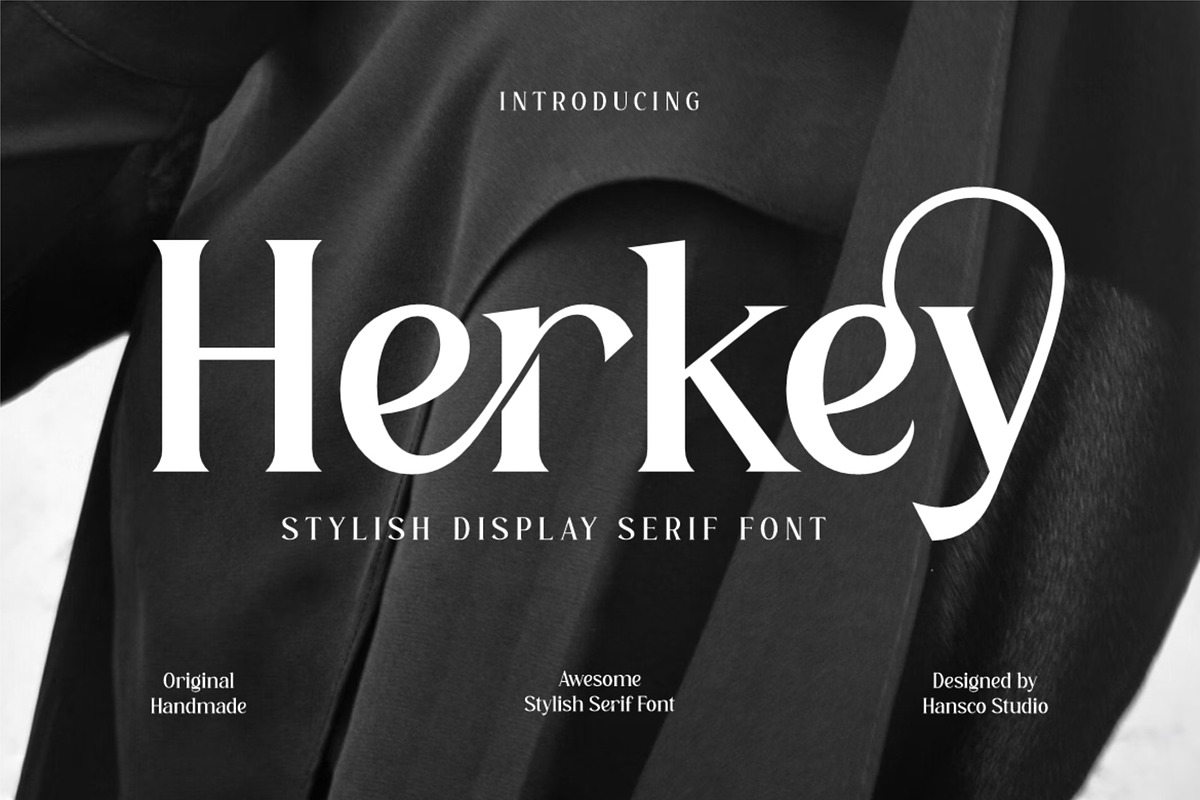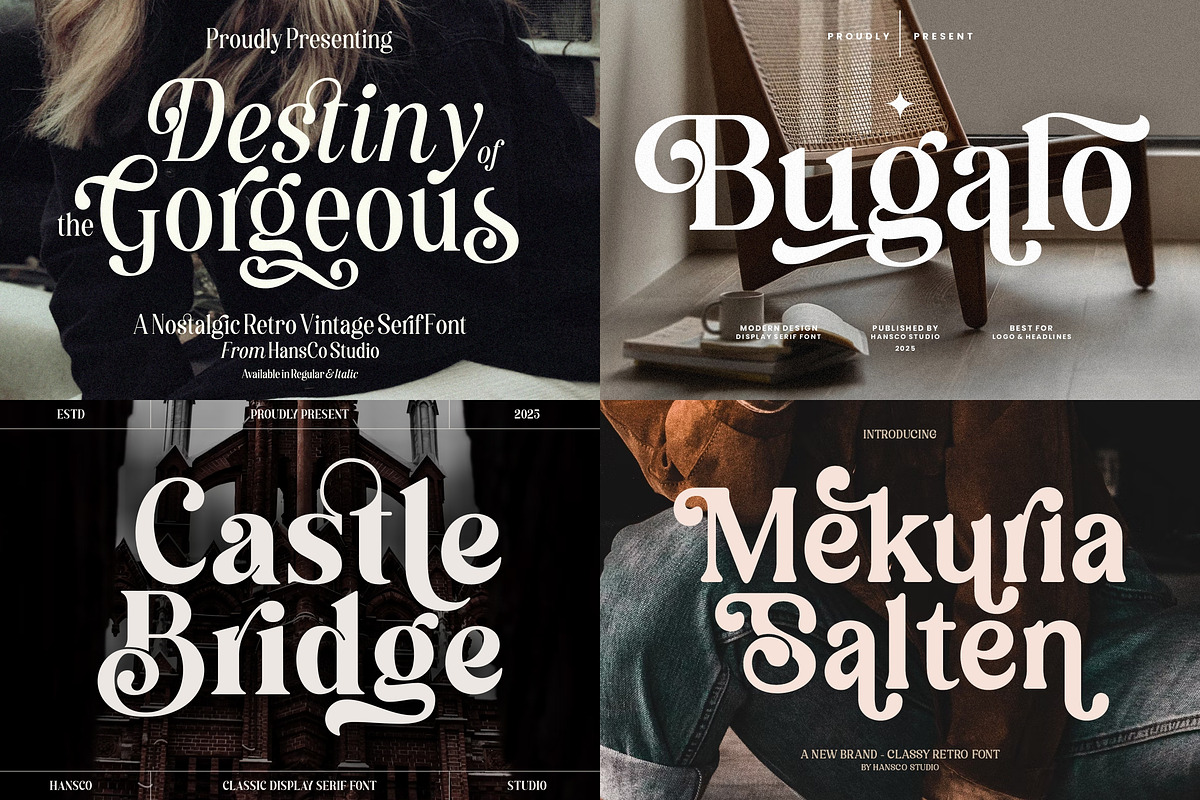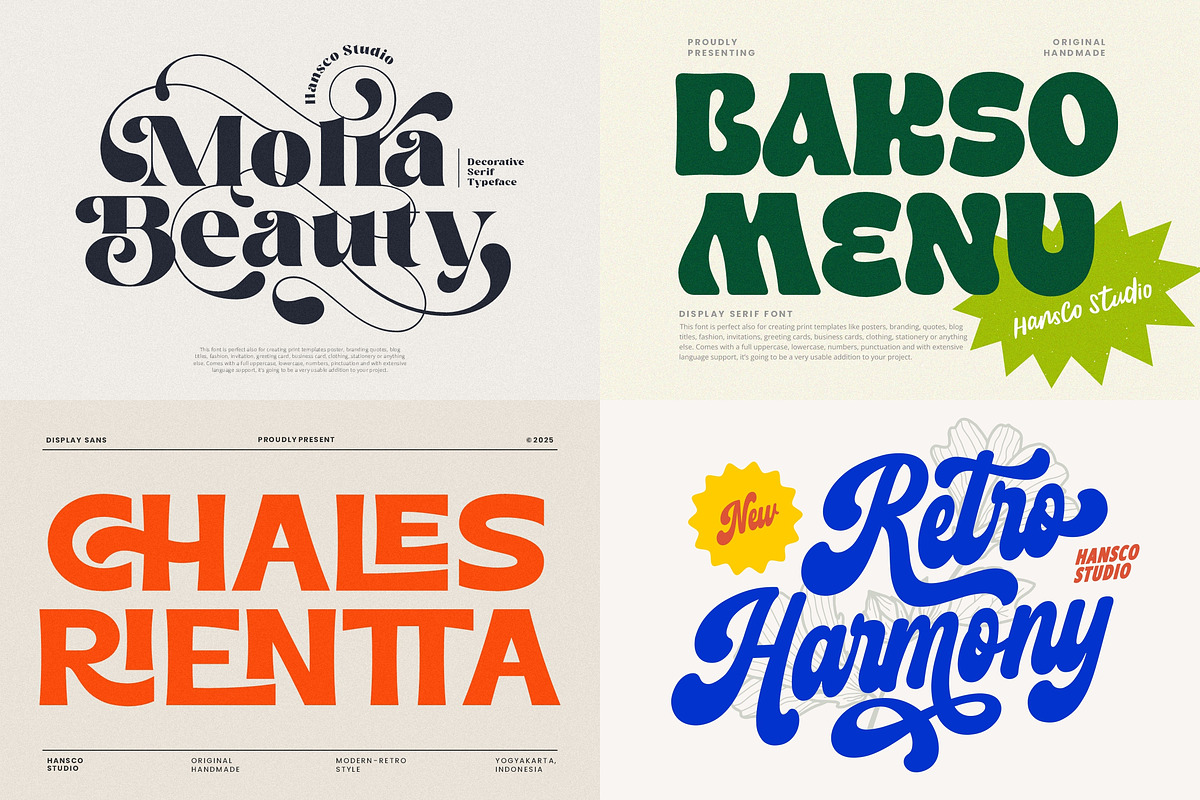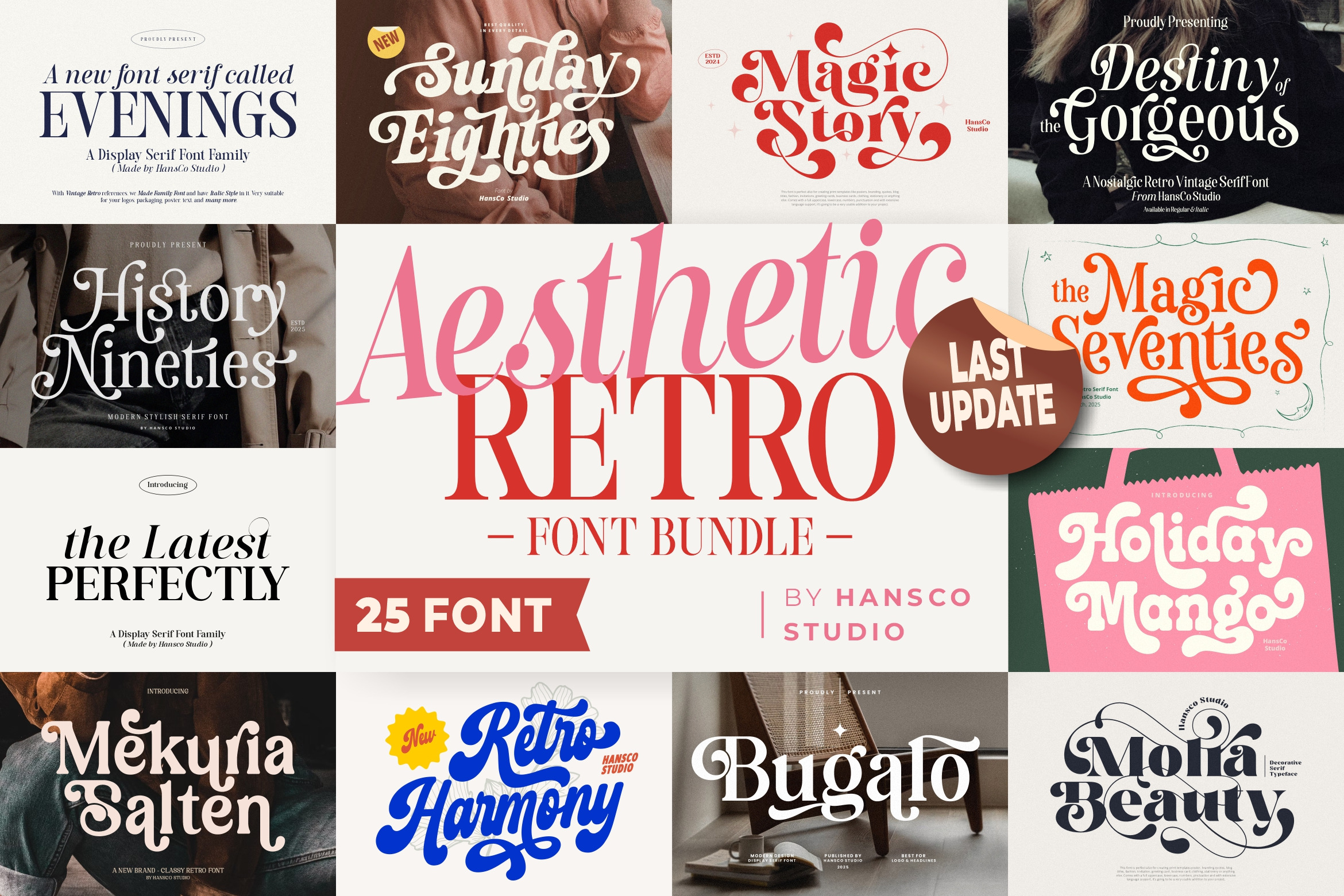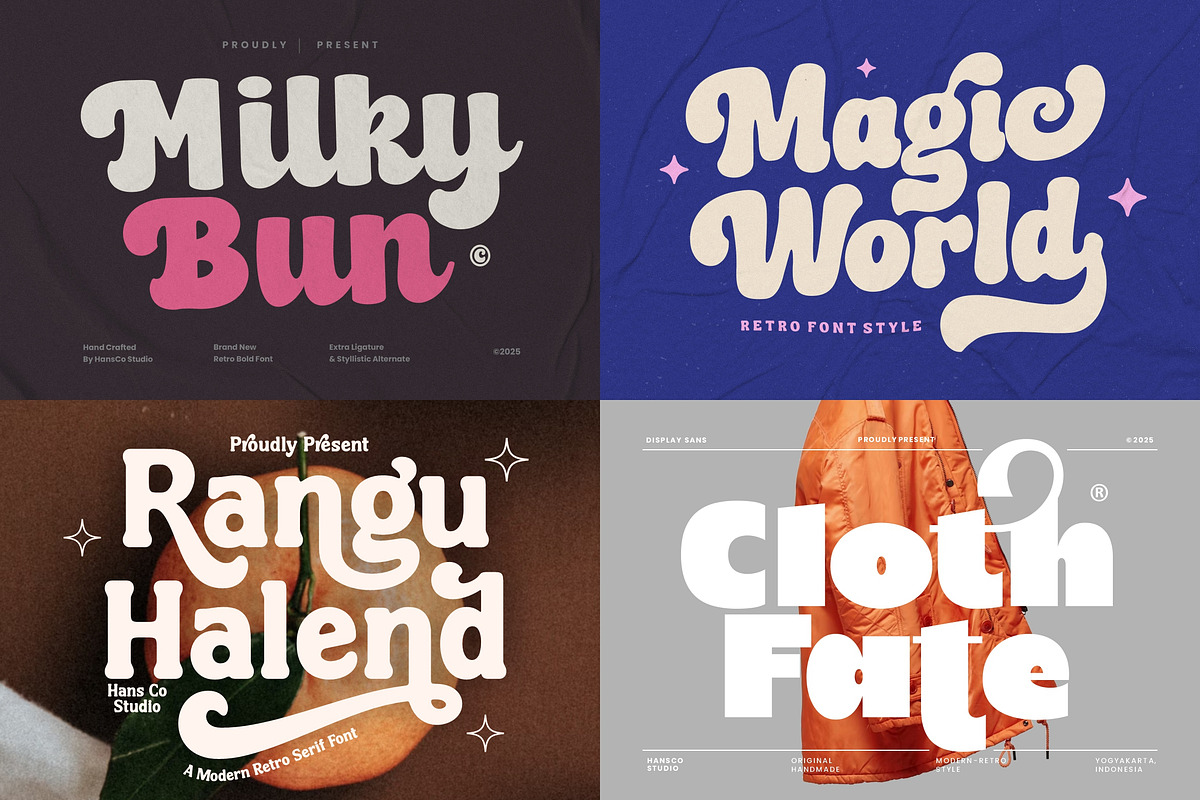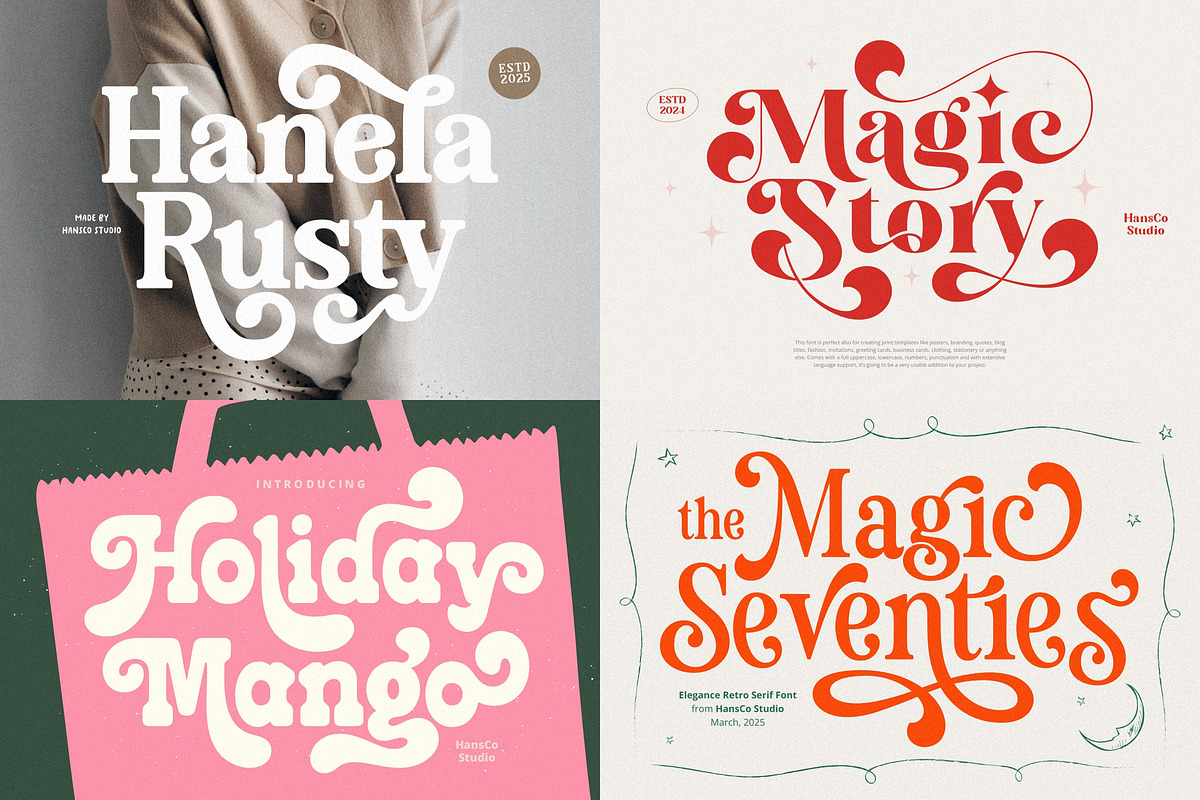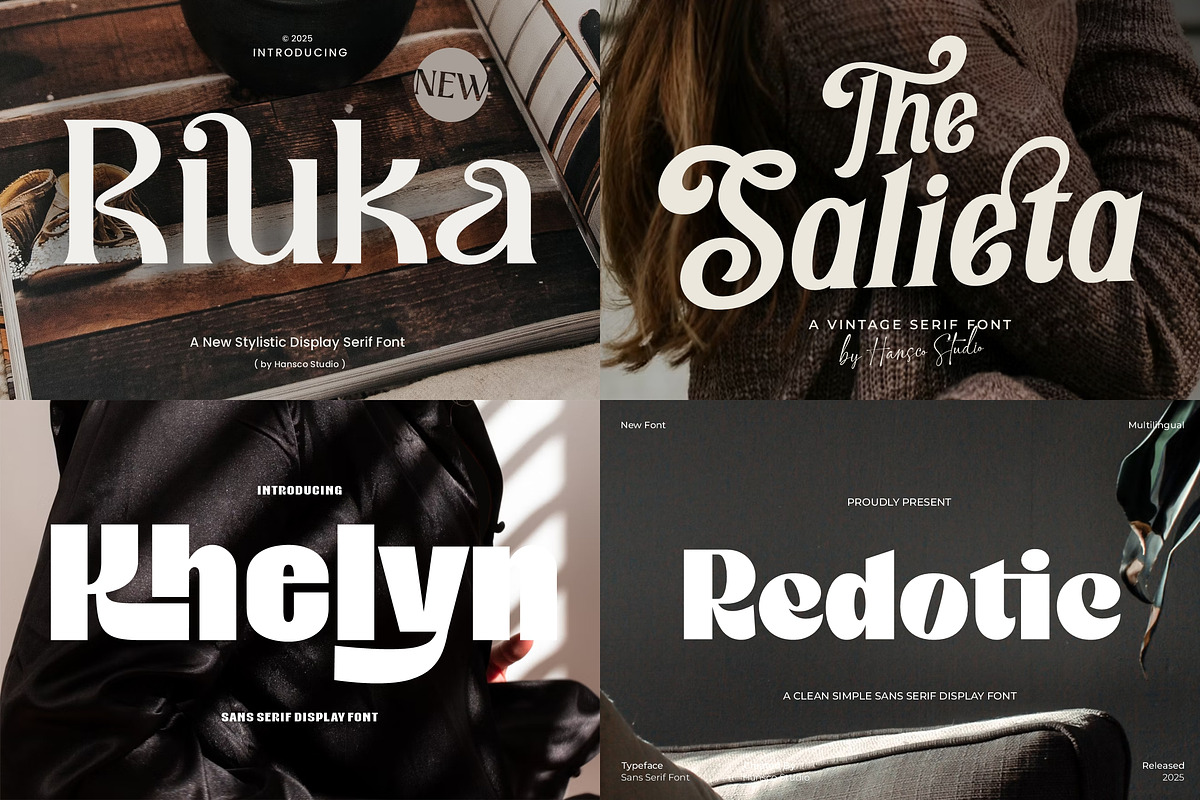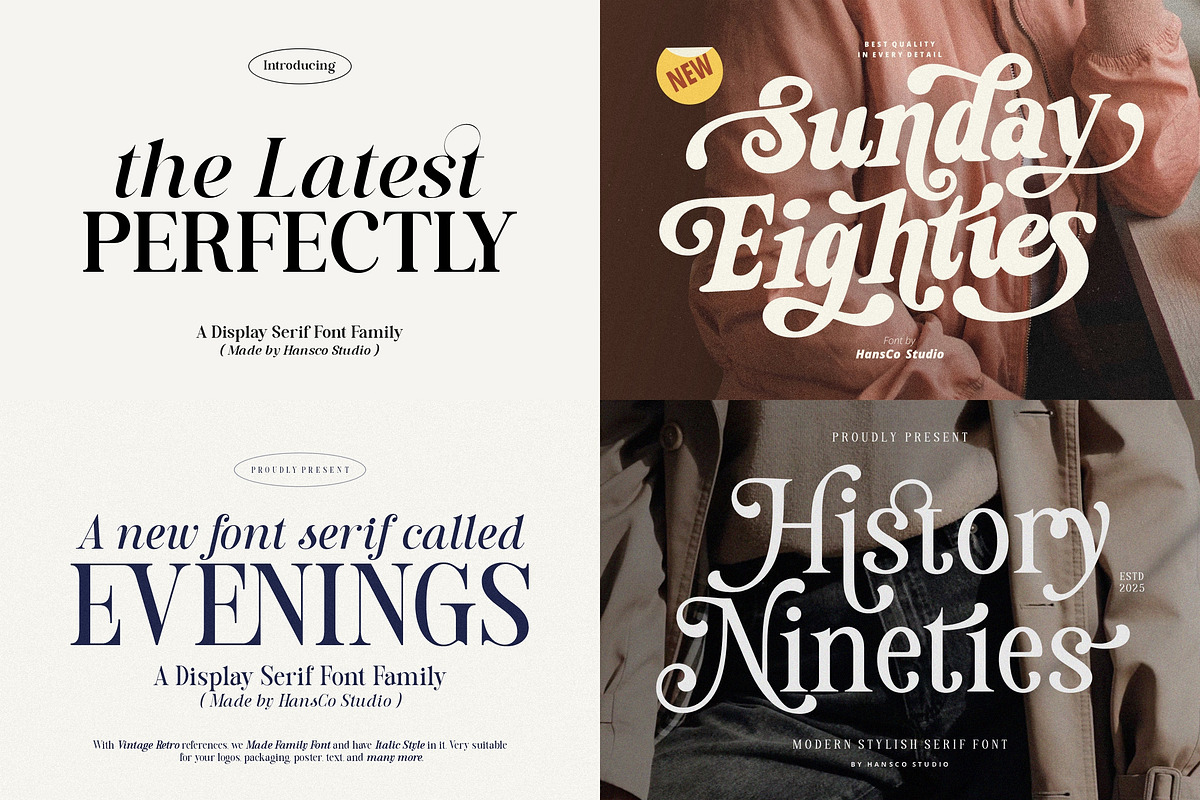
Aesthetic Retro Font Bundle come with 25 awesome unique fonts. Equipped with all complete characters ranging from uppercase letters, lowercase letters, numbers, punctuation marks and multi-lingual support, this font is ready to be used in any project. Very suitable for Logotype, Stickers, Packaging design, Cricut Project, Headlines, Brand identity, T shirt or Apparel industry, Posters, Magazines, Books, YouTube, Instagram, Websites, Canva, Corjl or any of your creative design projects. Use this Aesthetic Retro Font Bundle to add that special modern unique touch to any design idea you can think of!
- Alternate Character